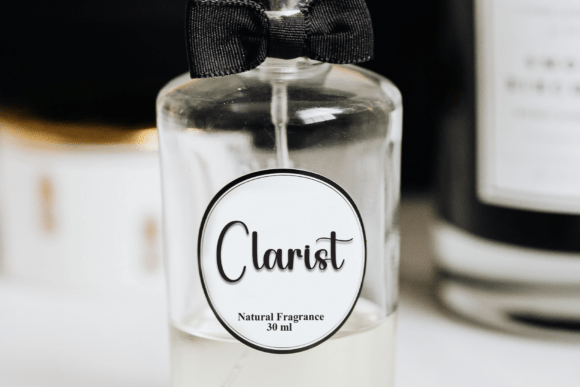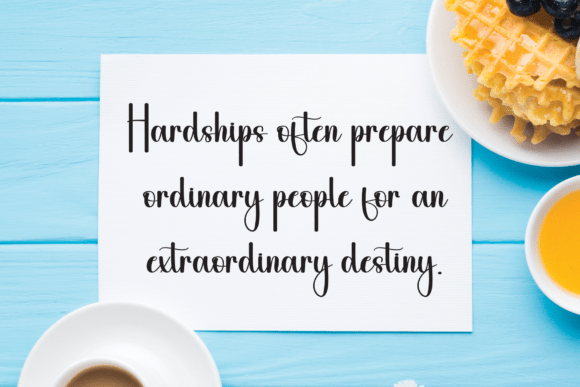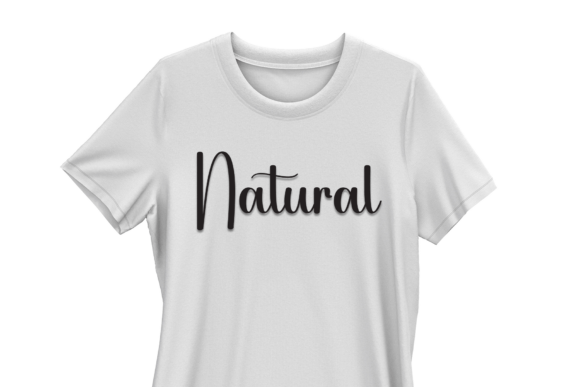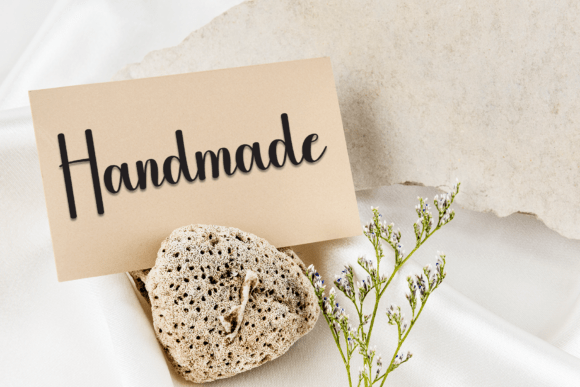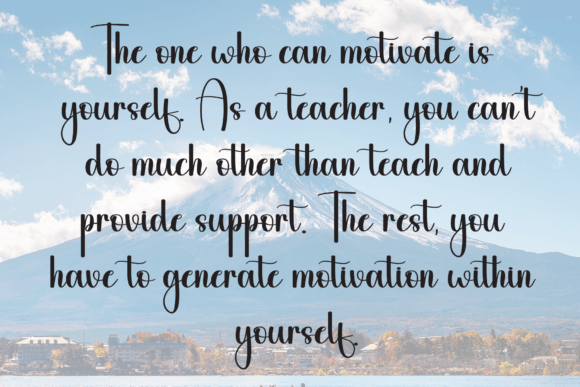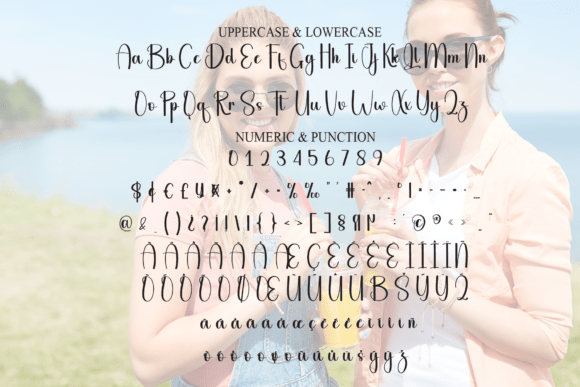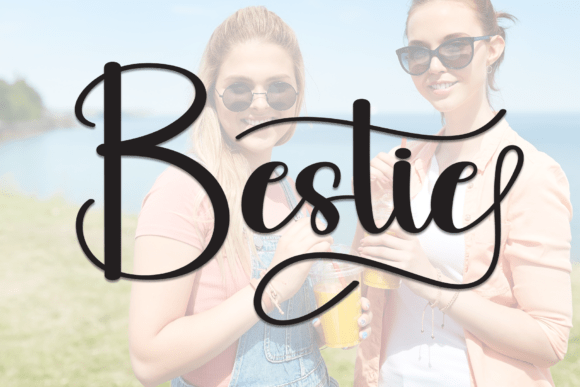
Introducing Bestie Font: Elevate Your Designs with Elegance and Charm
In the world of typography, a well-crafted font can make all the difference in transforming a design from ordinary to extraordinary. For designers and crafters seeking to add a touch of sophistication and personality to their projects, Bestie Font is an exceptional choice. This stylish handwritten script font is designed to exude elegance and charm, making it perfect for a variety of applications, from branding and invitations to stationery and more.
The Beauty of Bestie Font
Bestie Font boasts fluid, graceful strokes that bring a sense of refinement and luxury to any design. Its smooth curves and natural flow create a timeless, refined look that is both visually appealing and highly versatile. Whether you’re working on a logo, wedding invitation, or a custom stationery set, Bestie Font adds a personal and sophisticated touch that elevates your work to new heights.
Key Features of Bestie Font
- Fluid and Graceful Strokes: The font’s elegant strokes are designed to flow seamlessly, creating a beautiful, handwritten look that captures the eye.
- Perfect for Branding: Use Bestie Font to create memorable logos, product labels, and packaging that stand out with a touch of elegance.
- Ideal for Invitations and Stationery: Add a sophisticated touch to your wedding invitations, greeting cards, and custom stationery with this charming script font.
- Timeless and Refined: The font’s classic appeal ensures that your designs remain stylish and relevant for years to come.
Why Choose Bestie Font?
In a digital age where fonts are plentiful, Bestie Font stands out for its unique blend of elegance, charm, and versatility. Here are a few reasons why designers and crafters are gravitating towards this beautiful script font:
- Unique and Memorable: Bestie Font offers a distinctive look that sets your designs apart from the crowd, making them more memorable and impactful.
- Easy to Read: Despite its elegant and cursive nature, Bestie Font maintains excellent readability, making it suitable for both headings and body text.
- Highly Versatile: From digital designs to print materials, Bestie Font adapts seamlessly to various mediums and applications.
Using Bestie Font in Your Designs
Integrating Bestie Font into your projects is straightforward and beneficial for a wide range of design needs. Here are some popular applications:
- Branding and Logo Design: Create a lasting impression with elegant logos and brand names that speak of sophistication and quality.
- Wedding and Event Invitations: Make your invitations special with a font that conveys love, elegance, and personal touch.
- Stationery and Packaging: Elevate your stationery sets, business cards, and product packaging with a refined and stylish typography.
Tips for Maximizing Bestie Font’s Potential
To get the most out of Bestie Font, consider the following design tips:
- Pair with Complementary Fonts: Combine Bestie Font with simple, sans-serif fonts for contrast and visual interest.
- Experiment with Colors: While Bestie Font looks stunning in classic black and white, don’t be afraid to experiment with colors that match your brand or design theme.
- Adjust Letter Spacing: For a more customized look, adjust the letter spacing to create a unique flow that suits your design.
Bestie Font is more than just a script font; it’s a design element that can transform your projects with its elegance, charm, and timeless appeal. Whether you’re a professional designer or a crafting enthusiast, this stylish handwritten script font is sure to become a favorite in your collection. With its fluid strokes, natural flow, and versatile application, Bestie Font is the perfect choice for anyone looking to add a personal and sophisticated touch to their designs.